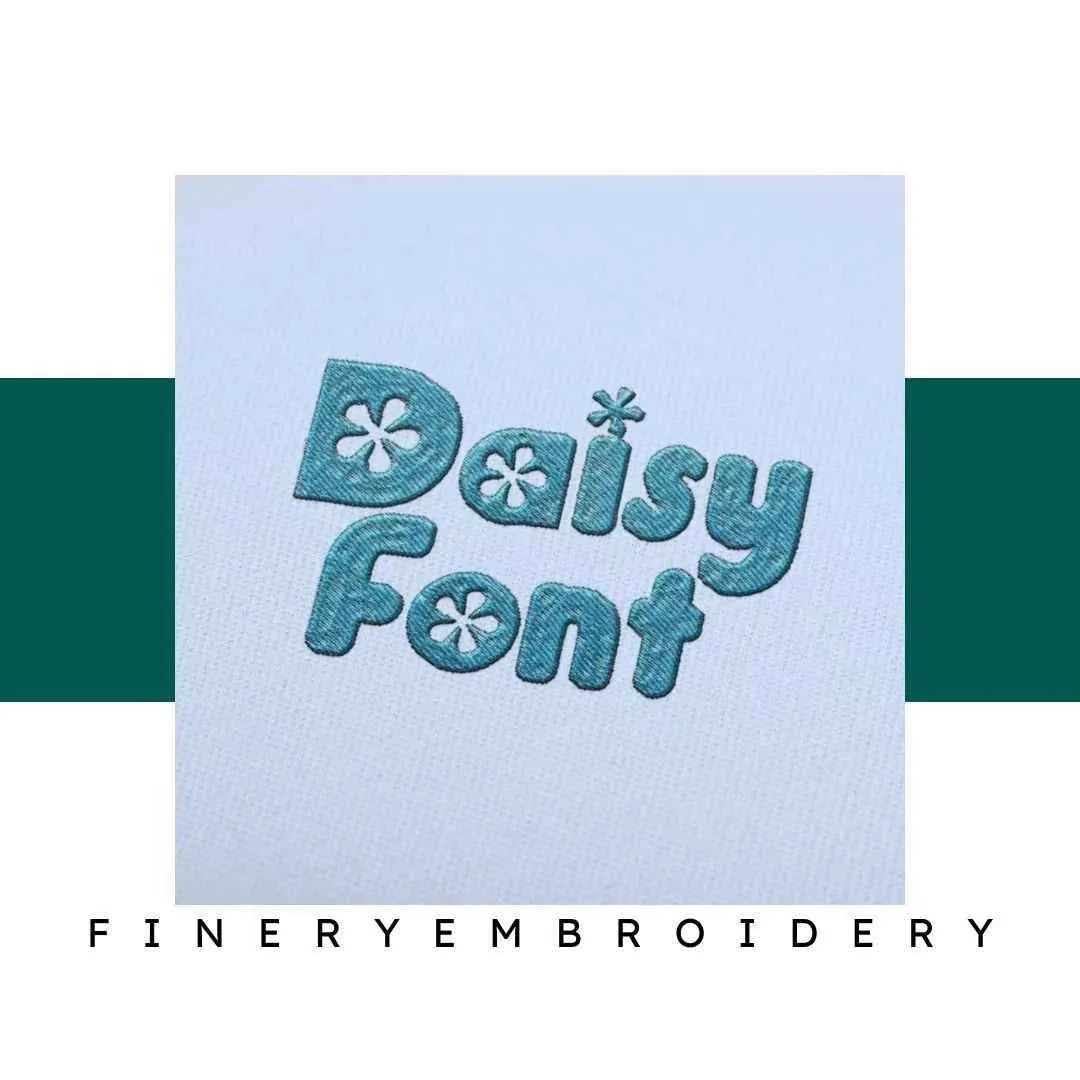
Transform your embroidery creations into works of art with our Daisy Embroidery Alphabet Font Set, where elegance meets functionality!
Introducing the Daisy Embroidery Alphabet Font Set, your new favorite tool for adding an air of sophistication and personality to all your embroidery projects. Whether you’re looking to personalize a gift or create eye-catching designs, this alphabet font set is crafted for both beginners and seasoned embroidery enthusiasts eager to elevate their craft.
The Daisy Embroidery Alphabet Font Set combines elegance and quality. With its clear lines and artistic flair, each letter is designed to stand out while seamlessly integrating into your creations. This set is perfect for those who appreciate detail and want to add a touch of class to their designs.
Imagine the possibilities! From monograms on towels to personalized messages on apparel, this versatile font set brings your ideas to life. Use it for custom home decor, unique gifts, or even business branding—whatever your vision, the Daisy Alphabet Font ensures your projects shine.